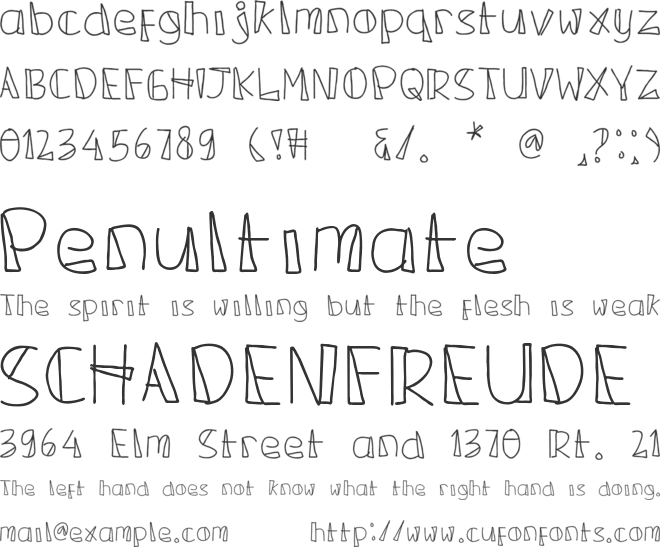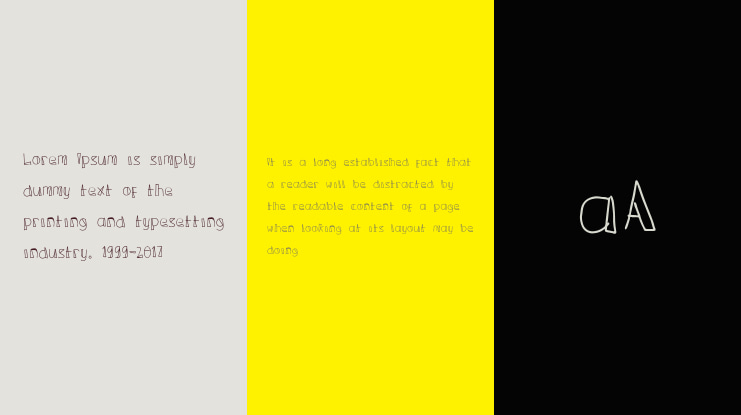
Welcome Santa Font
Masyafi std
Welcome Santa is a cute and friendly handwritten font. It features sweet and simple characters, and as a result it matches a wide range of designs. Add it to your Christmas letters, cards, or anything that needs a natural touch.